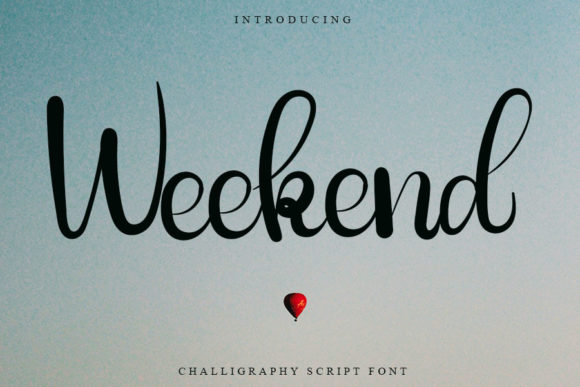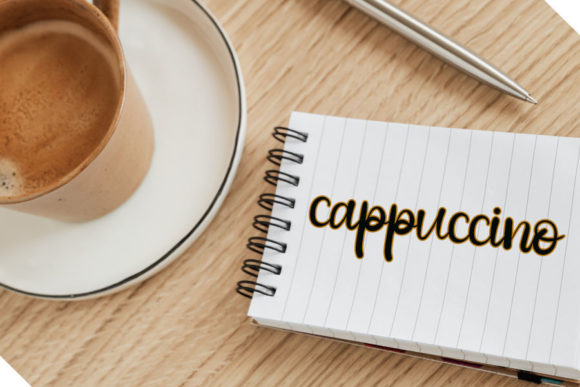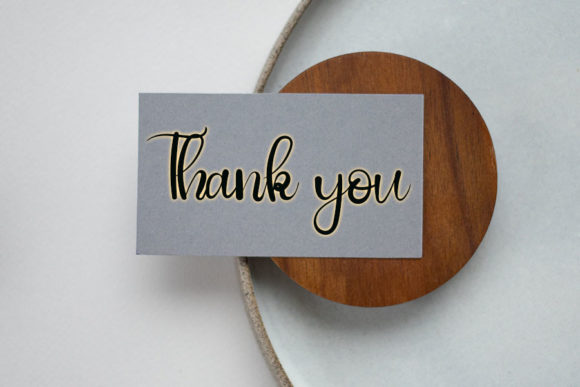
Weekend Font
Weekend is a trendy and chic lettered script font. Whether you’re using it for crafting, digital designing, presentations or greeting cards making, it’s perfect!